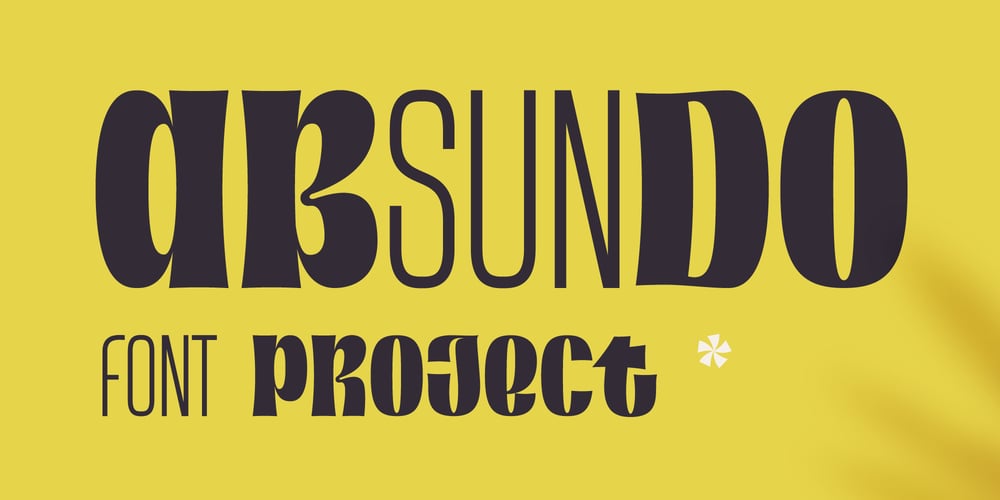
Absundo Font Family was designed by Roman Korolev and published by Kaer. Absundo contains 1 styles and family package options. ABsunDO PROJECT is a playful font for your fun and happy design projects. The main idea of this font is a quirky replacement of uppercase and lowercase symbols. Uppercase is heavy and bold, at the same time lowercase is light and narrow. You’ll get a playful font for fun advertising, fashion stickers, summer posters, wedding logos, retro sale themes, and much more.Please feel free to request to add characters you need: kaer.pro@gmail.com